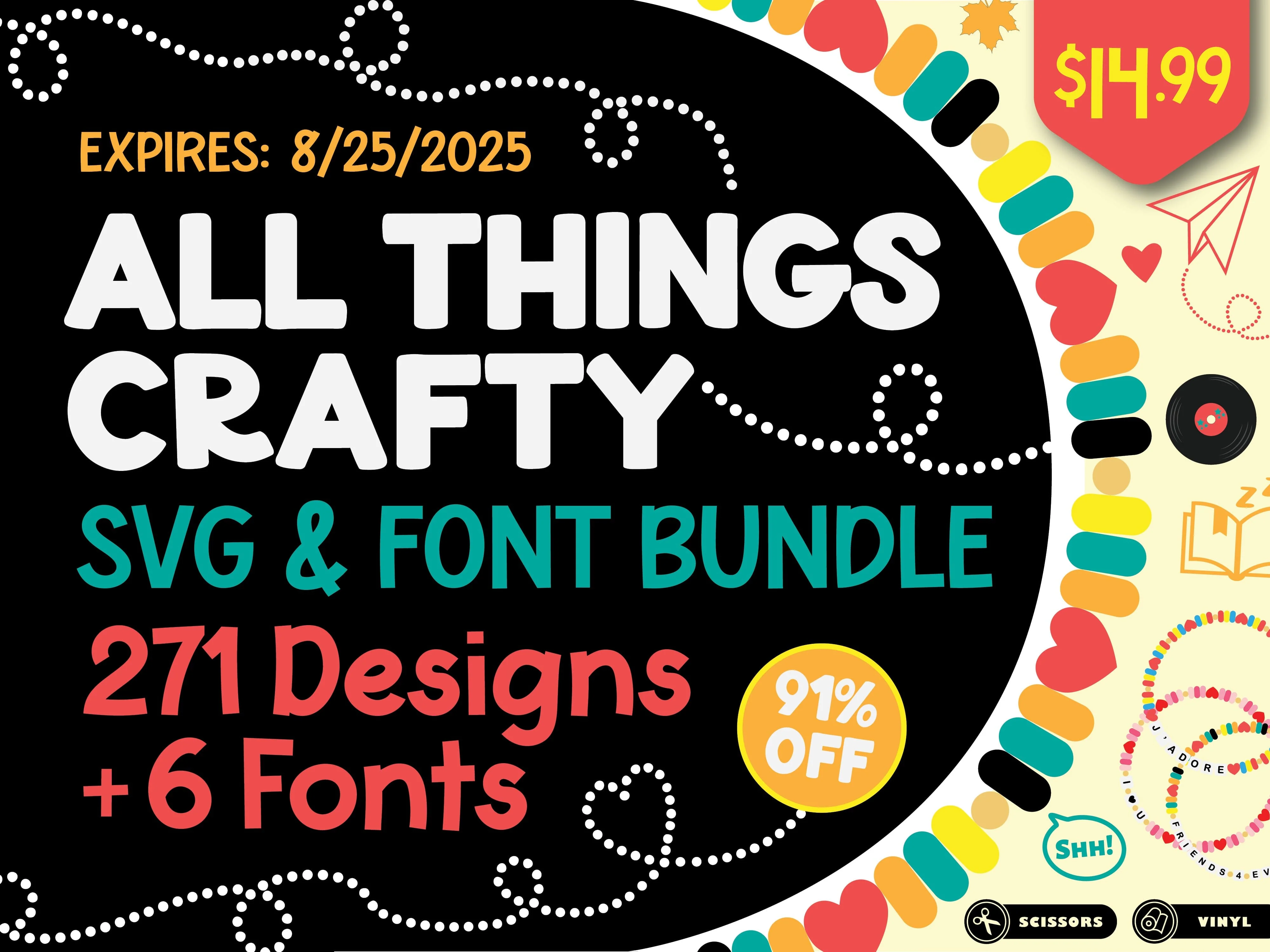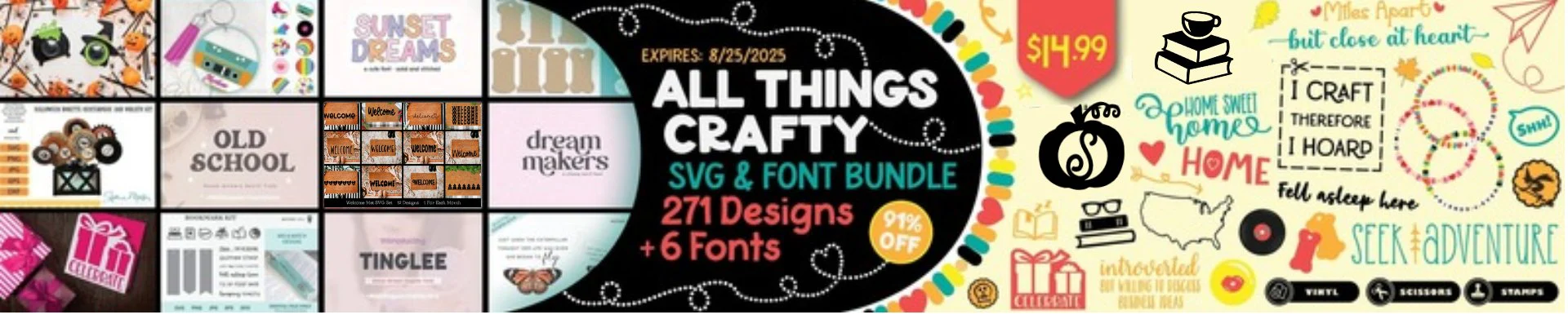
All Things Crafty SVG and Font Bundle – 271 Designs & 6 Fonts | 91% OFF!
You cannot miss the All Things Crafty SVG and Font Bundle – a premium collection featuring 271 high-quality SVG designs and 6 hand-drawn fonts perfect for every maker, crafter, and DIY enthusiast. Whether you're personalizing gifts, creating home décor, or designing custom apparel, this bundle has something for every season and project.
What's Included:
6 charming and unique fonts (serif, sans serif, handwritten)